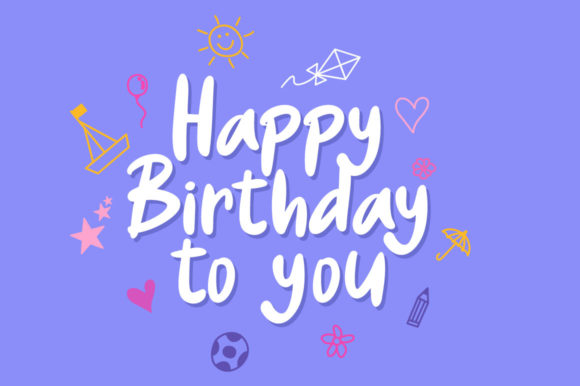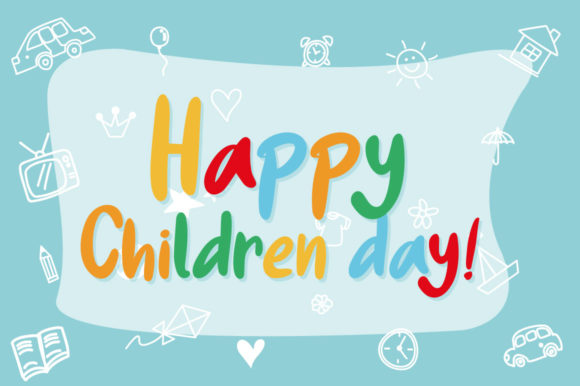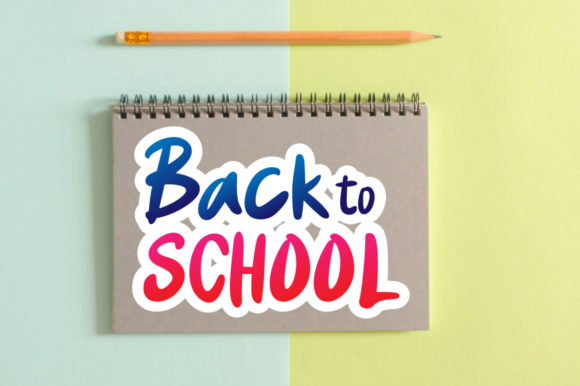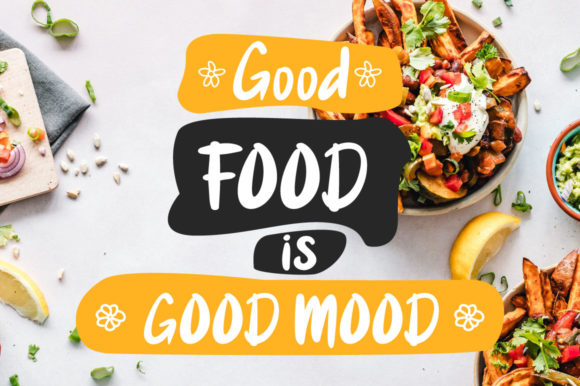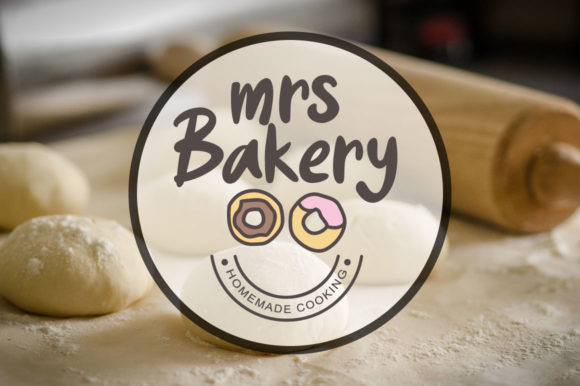
Introduction to Babygirl Font
As you sit at your desk, staring blankly at a blank canvas, the pressure to create something amazing can be overwhelming. But what if you had the perfect tool to bring your vision to life? Enter the Babygirl Font, a charming and organic handwritten font that’s about to become your new best friend.
This free download is a game-changer for any creative project, offering a unique and eye-catching touch that’s sure to elevate your design to the next level. With its transparent background and high-quality design, you can easily integrate the Babygirl Font into your work, from logos and branding to social media graphics and more.
Whether you’re a seasoned designer or just starting out, the Babygirl Font is an invaluable addition to your design resource arsenal. Its versatility and charm make it the perfect asset to have in your toolkit, and we can’t wait to see what amazing creations you’ll come up with using it.
Key Features of Babygirl Font
- Unique and playful script font ideal for creative projects and feminine designs
- High-quality font with transparent background, perfect for creating visually appealing graphics and designs
- Includes a range of glyphs and characters, including uppercase and lowercase letters, numbers, and punctuation marks
- Perfect for designing baby-themed products, such as nursery decorations, baby clothes, and accessories, as well as other creative projects
Honest Review: Babygirl Font
I recently stumbled upon the Babygirl Font, and I must say, it’s a lovely addition to any creative project. The first thing that caught my eye was the high quality of the font – it’s crisp, clear, and perfectly suited for any design need.
The font is available for free download, which is a definite plus. I love that it’s a transparent background, making it easy to integrate into any design. The Babygirl Font is perfect for projects that need a touch of femininity and sweetness.
- High quality and crisp design
Overall, I think the Babygirl Font is a great design resource for personal or creative projects. It’s perfect for adding a touch of whimsy and charm to your design. While it has some limitations, it’s still a great addition to any designer’s toolkit.
The Babygirl Font is ideal for various creative projects, such as:
- Wedding invitations and decor
- Baby shower invitations and decor
- Personalized stationery and greeting cards